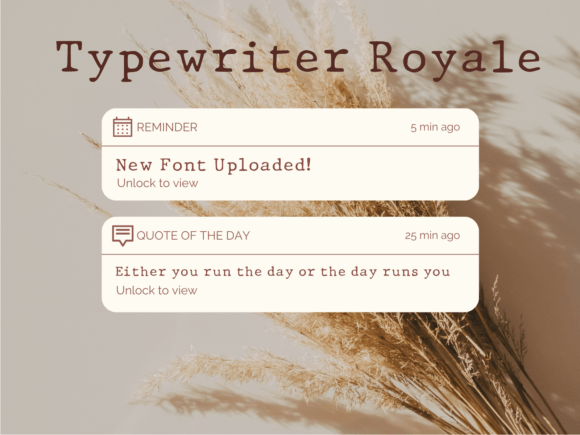
Typewriter Royale is the perfect modern typewriter font! Use this to add a cool, vintage spark to your design projects. Typewriter Royale will be perfect for packaging, presentations, logos, headlines, lettering, posters, branding, quotes, titles, magazine headings, web layouts, advertising, invitations, and nearly any creative design.